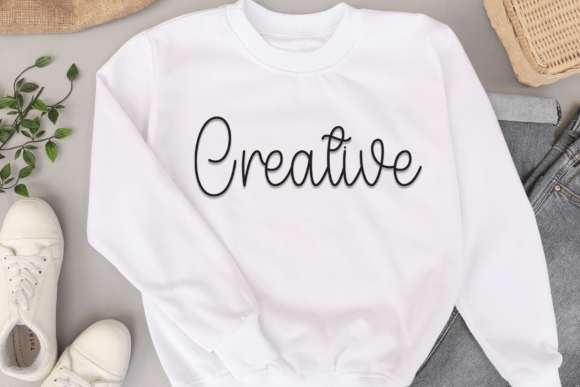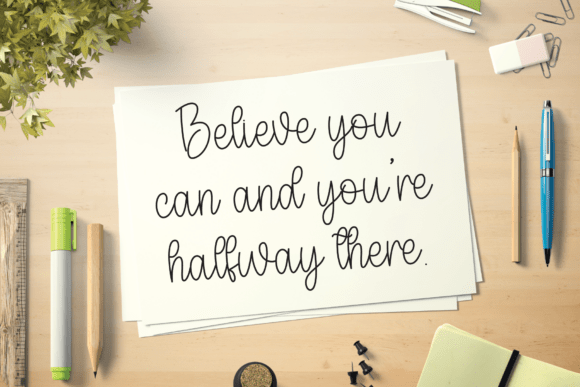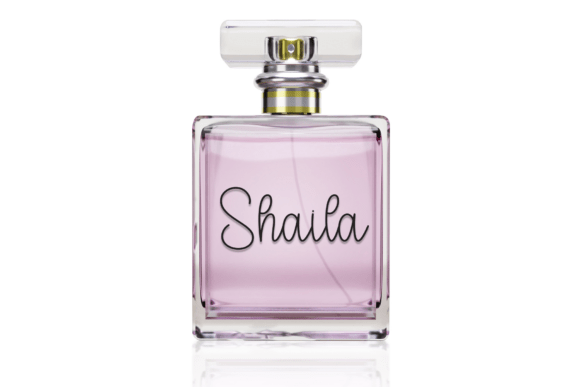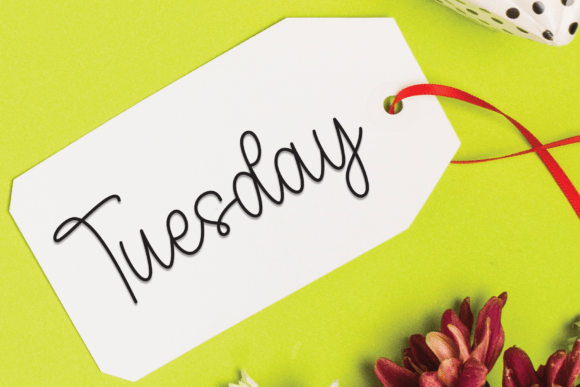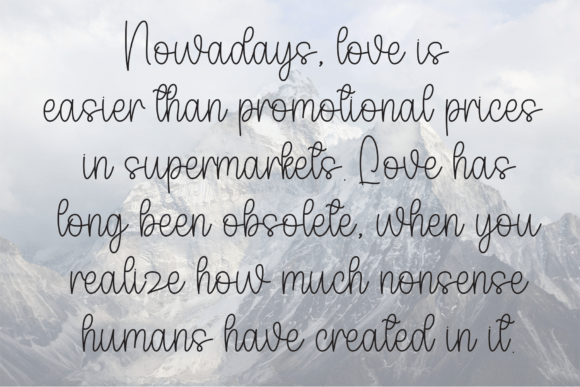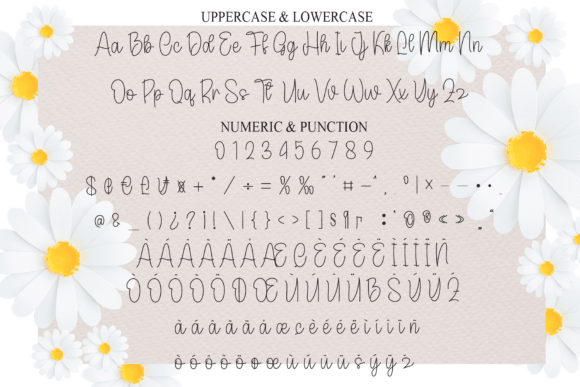
Daisy Font: A Simple yet Whimsical Handwritten Font for Your Designs
Are you looking for a font that can add a touch of friendliness and playfulness to your designs? Look no further than the Daisy Font! This beautiful handwritten font is perfect for designers and crafters who want to create stunning visual content that stands out from the crowd. In this article, we’ll explore the features and benefits of the Daisy Font, and how you can use it to elevate your designs.
What is Daisy Font?
Daisy Font is a simple and friendly handwritten font that is designed to bring a touch of whimsy and quirkiness to your designs. With its elegant and flowing lines, this font is perfect for creating beautiful and eye-catching visual content. Whether you’re designing a logo, wedding invitation, quote, advertisement, or magazine, the Daisy Font is sure to brighten up your project and leave a lasting impression.
Key Features of Daisy Font
- Handwritten style: The Daisy Font has a beautiful handwritten style that gives it a personal and friendly touch.
- Whimsical and quirky: This font has a playful and quirky vibe that makes it perfect for designs that need a bit of personality.
- Simple and elegant: Despite its playful nature, the Daisy Font is simple and elegant, making it suitable for a wide range of design projects.
- Versatile: This font is perfect for logos, wedding invitations, quotes, advertisements, print, magazines, and more!
Benefits of Using Daisy Font
So, why should you use the Daisy Font in your designs? Here are just a few benefits:
- Adds personality to your designs: The Daisy Font has a unique and playful personality that can help your designs stand out from the crowd.
- Perfect for creative projects: If you’re working on a creative project, such as a wedding invitation or a magazine, the Daisy Font is a great choice.
- Easy to read: Despite its playful nature, the Daisy Font is easy to read, making it perfect for designs that require a lot of text.
- Customizable: You can use the Daisy Font in a variety of ways, from large headings to small body text.
How to Use Daisy Font in Your Designs
Using the Daisy Font in your designs is easy! Here are a few tips:
- Pair it with other fonts: The Daisy Font pairs well with other fonts, such as sans-serif fonts, to create a beautiful contrast.
- Use it for headings and titles: The Daisy Font is perfect for headings and titles, where you want to make a statement.
- Add it to your branding: If you’re looking for a font to use in your branding, the Daisy Font is a great choice.
- Experiment with different colors: The Daisy Font looks great in a variety of colors, from bright and bold to soft and pastel.
Who Can Benefit from Using Daisy Font?
The Daisy Font is perfect for a wide range of designers and crafters, including:
- Graphic designers: If you’re a graphic designer looking for a font to use in your designs, the Daisy Font is a great choice.
- Wedding planners: The Daisy Font is perfect for wedding invitations, programs, and other wedding-related designs.
- Crafters: If you’re a crafter who loves to make things like cards, gift tags, and other paper crafts, the Daisy Font is a great choice.
- Small business owners: If you’re a small business owner looking for a font to use in your branding, the Daisy Font is a great option.
In conclusion, the Daisy Font is a beautiful and versatile handwritten font that is perfect for designers and crafters who want to add a touch of friendliness and playfulness to their designs. With its elegant and flowing lines, this font is suitable for a wide range of design projects, from logos and wedding invitations to quotes and advertisements. So why not give it a try and see how it can elevate your designs?